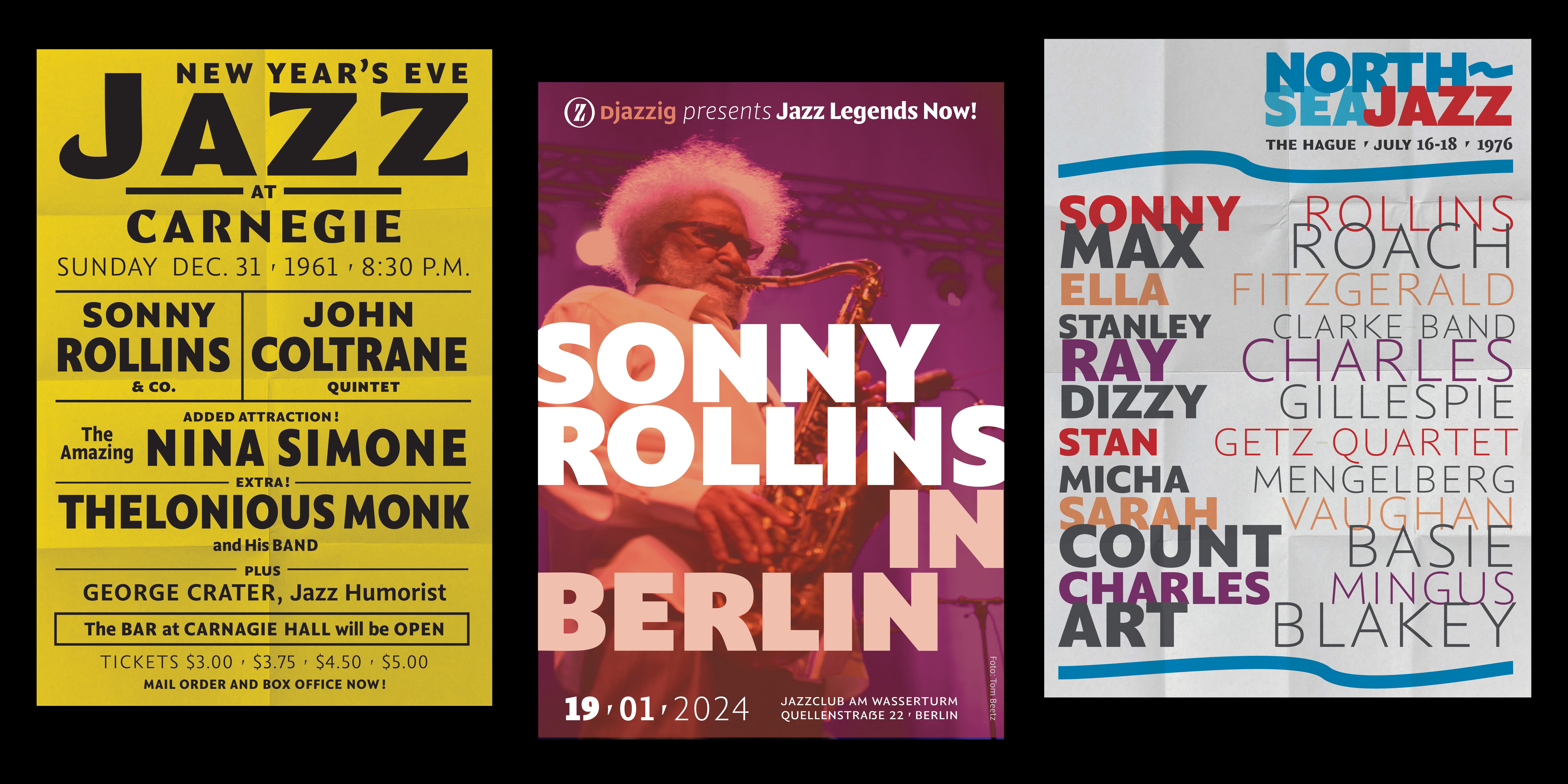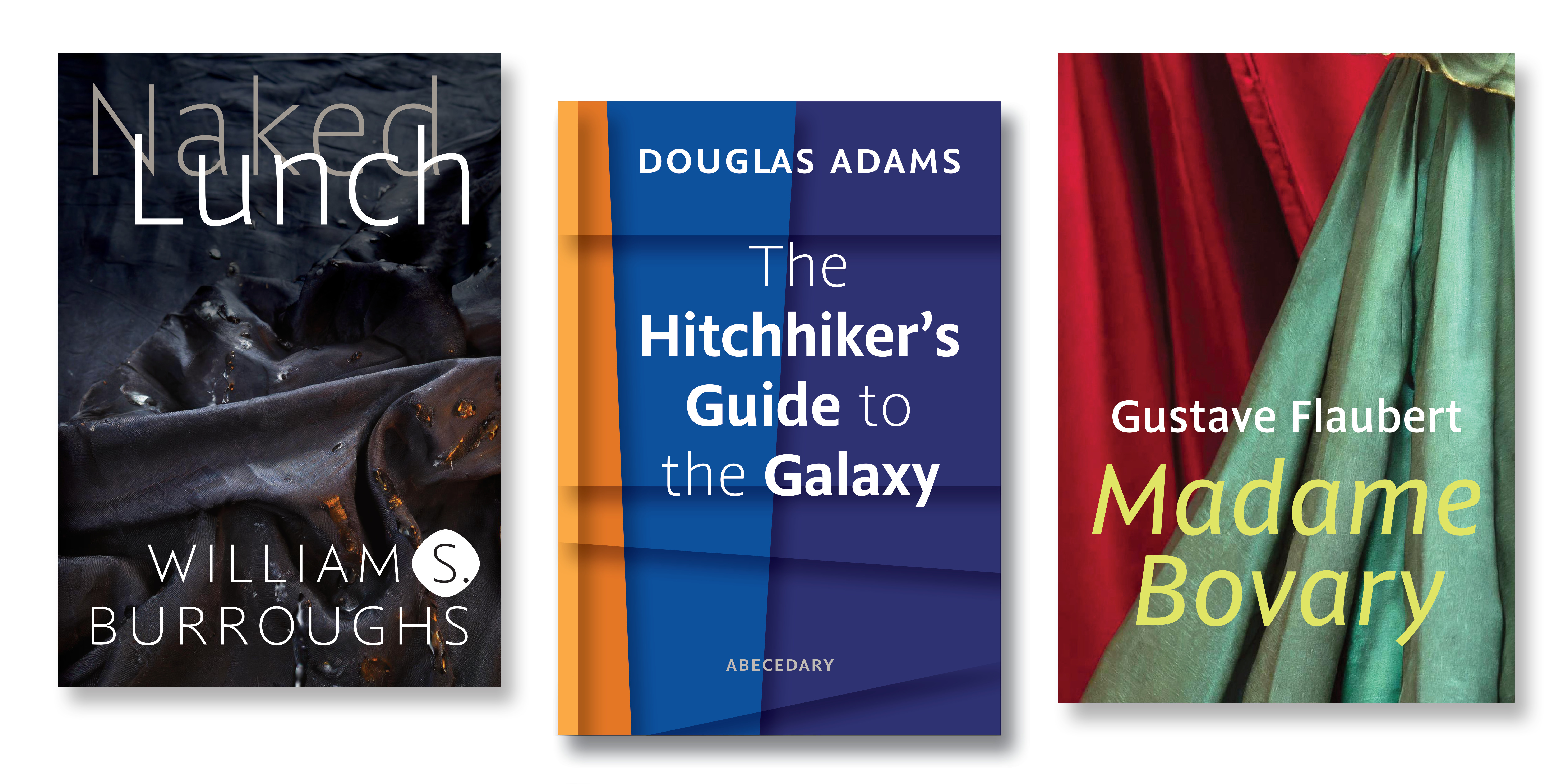
Martin Majoor has been designing typefaces since the late 1980s. Rather more recently, in 2021, when the ILT store launched we were proud to do so with Martin’s new and eponymous foundry and the release of Comma Base, a novel design that blurs the boundaries between sans and serif fonts. Today, Comma Sans joins the family and is available exclusively from ILT.
The peculiar thing about Comma Base is that many users, despite it being a sans-serif typeface, perceive it as a serif typeface. This is, of course, due to its noticeable contrast between thick and thin strokes. Within a serif typeface, this seems to prove that for a ‘serif-like’ feel, the presence of contrast is just as important as the presence of actual serifs. With its high contrast, Comma Base is exceptionally well-suited for headlines, but it has also proven itself as a serious text typeface, primarily because it has what I earlier described as a ‘serif-like’ feel.
Comma Sans, on the other hand, is a completely standard sans-serif typeface without significant contrast. It has a humanist character, but in detail, there are differences compared to Comma Base. One key feature is that the vertical stroke terminals have a 90° angle, giving Comma Sans a more geometric feel than Comma Base, which has rounded and slanted ends. In this way, Comma Sans combines its humanist character with geometric elements.
With its wide range of weights, Comma Sans is well-suited for headlines, but thanks to its balanced spacing and economical nature, it also performs exceptionally well as a text typeface. It can be considered a true workhorse typeface. Its neutral character makes it highly suitable for signage, television titles, short texts on websites, book covers, posters, and even scientific publications.
The remarkable thing about Comma Sans (along with Comma Base) is that it maintains identical widths across all weights. No matter what weight you choose, it will always take up the same space. This feature is known as uniwidth.
Ask any serious user who works with long texts, and they will all agree that this is one of the most logical and coolest features a typeface can have. If you want to bold a section of text in a column or in headings, the text won’t reflow.
I had already incorporated this feature into Scala in 1989, and as a magazine designer, it saved me countless headaches. More than once, the editor would decide – just fifteen minutes before publication – that a section needed to be bolded, and thanks to uniwidth, I didn’t have to worry about the text shifting.
I’ve calculated that since 1988, I’ve released nine typefaces, averaging one typeface every four years. That said, I often create larger families with serif, sans, slab, and display versions. But it should be clear that, when designing typefaces, I have often taken long breaks.
Every type designer who, whether willingly or not, has put their type design on the shelf for a while will inevitably spot a number of mistakes and inconsistencies when they review the letterforms again after a break. I always tell students that it’s important to take a step back from the type design they’re working on. And by that, I mean distance in time (don’t look at it for a month; go do something else), but also literal physical distance (hang it on the wall at the other end of the room). Distance in both time and space almost always leads to better letterforms.
I’ll share an anecdote: Before Neville Brody met me in the 1990s, he had already seen my Scala, which made him almost certain that I must be some old grey gentleman in a grey three-piece suit. How wrong could he be! I wouldn’t even attempt to describe what kind of clothes Comma Sans and Comma Base would wear. However, I do think they wouldn’t be caught wearing a bow tie or a hat.
I can imagine Comma Sans on the signage of a train station or airport. Its slightly economical character and geometrically shaped vertical end terminals make it exceptionally suited for such uses. I also think that many medium and small businesses, who can’t afford to have a custom typeface created, could do very well with a versatile typeface like Comma Sans.
This interview is set in Comma Sans and Comma Base.